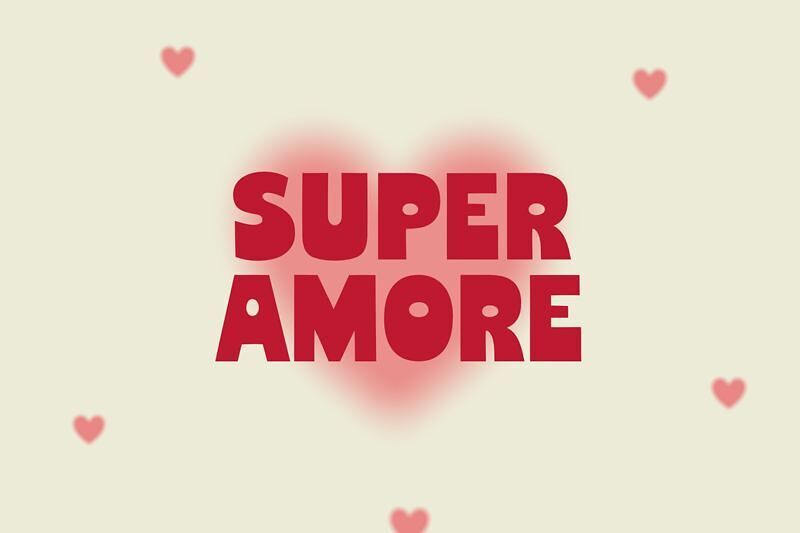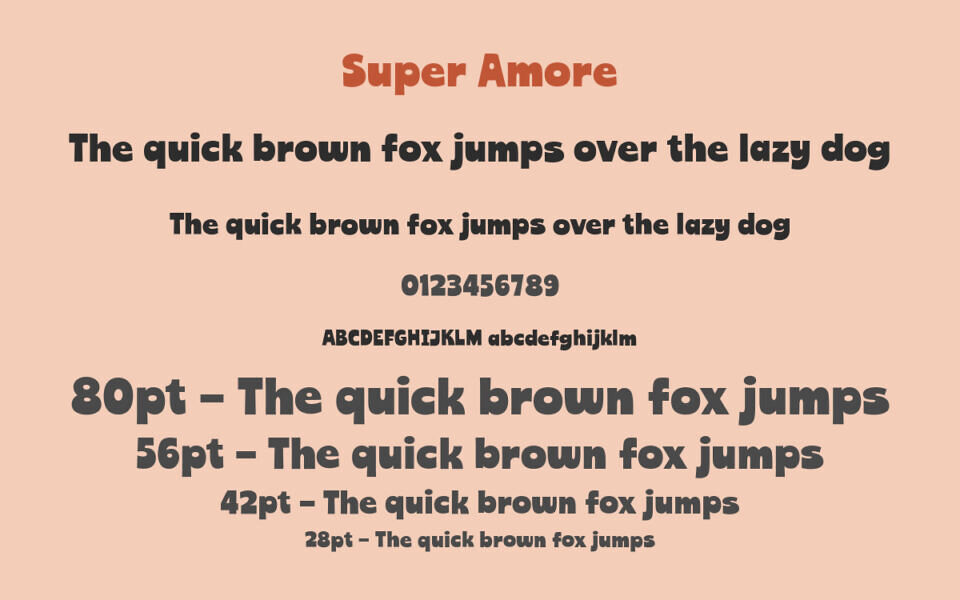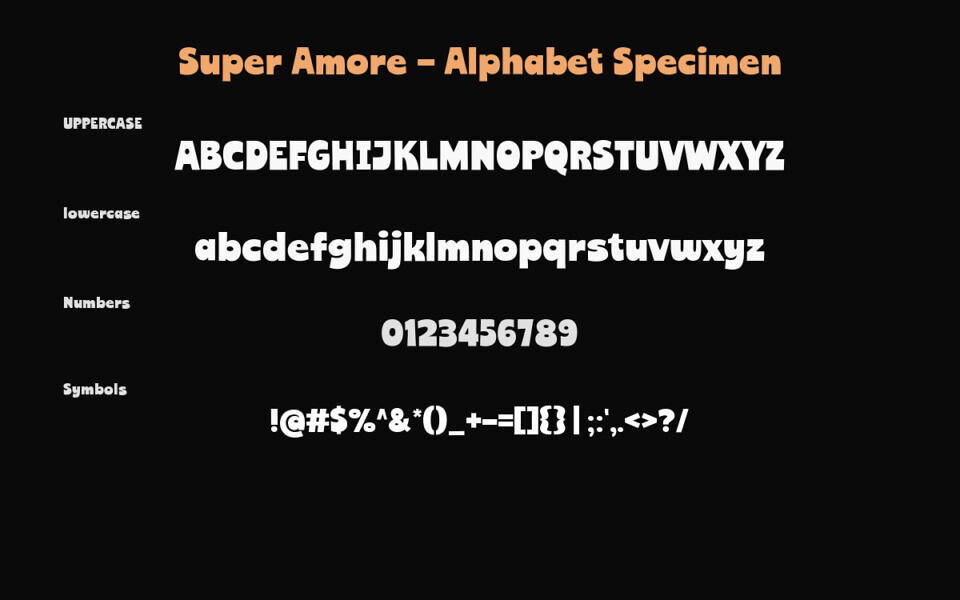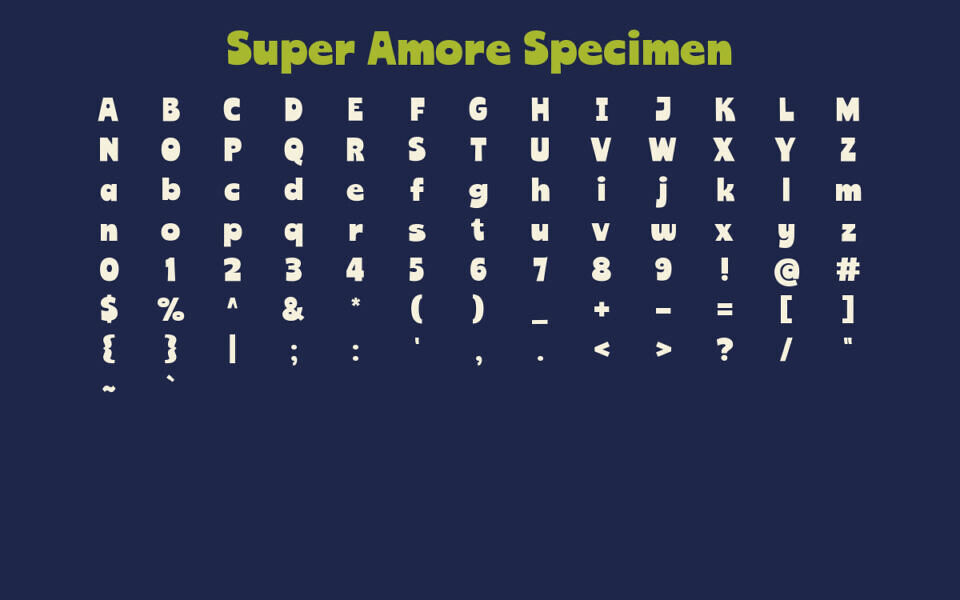
Super Amore is a free, bold sans-serif font designed to inject fun and romance into your typography. Characterized by its chunky weight and playful, hand-drawn aesthetic, this display typeface features thick strokes with uniquely tight counters that create a charming, cartoon-like feel.
Perfect for Valentine’s Day projects, cute branding, and comic-style headlines, Super Amore offers high readability with a friendly vibe. The font includes a complete set of uppercase and lowercase letters, numbers, and symbols for versatile design work.